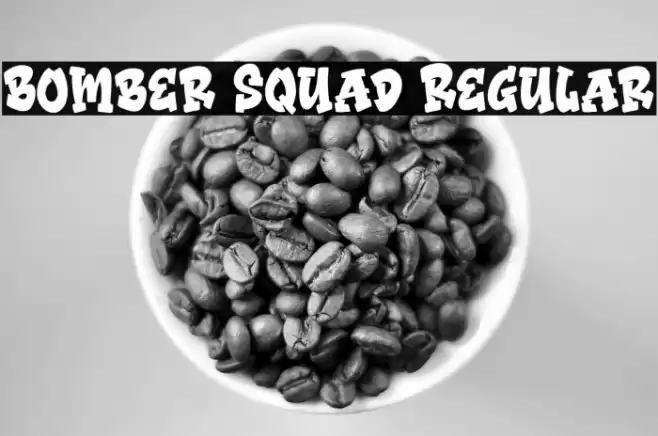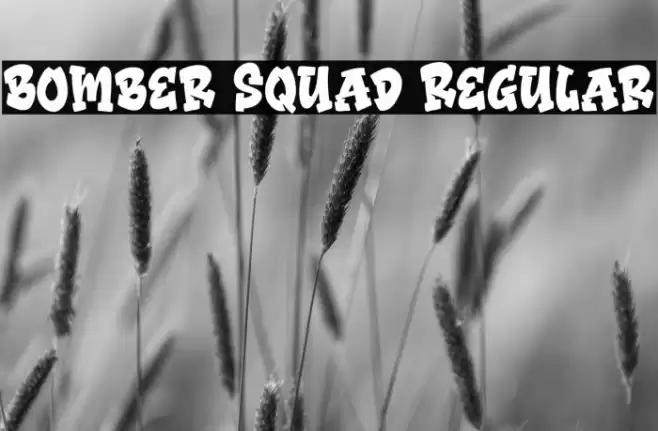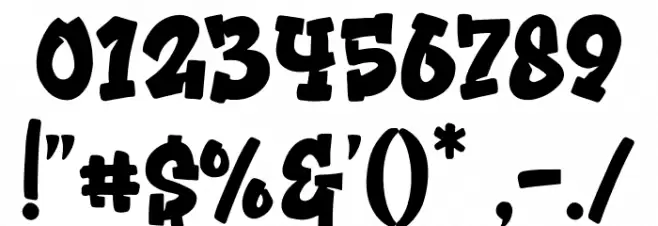
Bomber Squad Regular Font
Bomber Squad Regular Description
This font features a bold and playful design with exaggerated curves and a strong presence. The characters are thick and rounded, giving them a cartoonish and energetic feel. The uppercase and lowercase letters maintain a consistent style, with a slight slant that adds dynamism. The numbers are equally bold, ensuring visibility and impact. Special characters are creatively designed, maintaining the overall playful theme. This font is perfect for projects that require a fun and engaging look, such as children's books, comic strips, or playful branding.
A bold, playful font with exaggerated curves and a cartoonish style from Regular fonts.
- Proposed Projects: Ideal for children's books, comic strips, playful branding, and eye-catching posters.
- Overall Style: Playful, Cartoonish, Energetic
- Use Case: Headlines, Posters, Branding